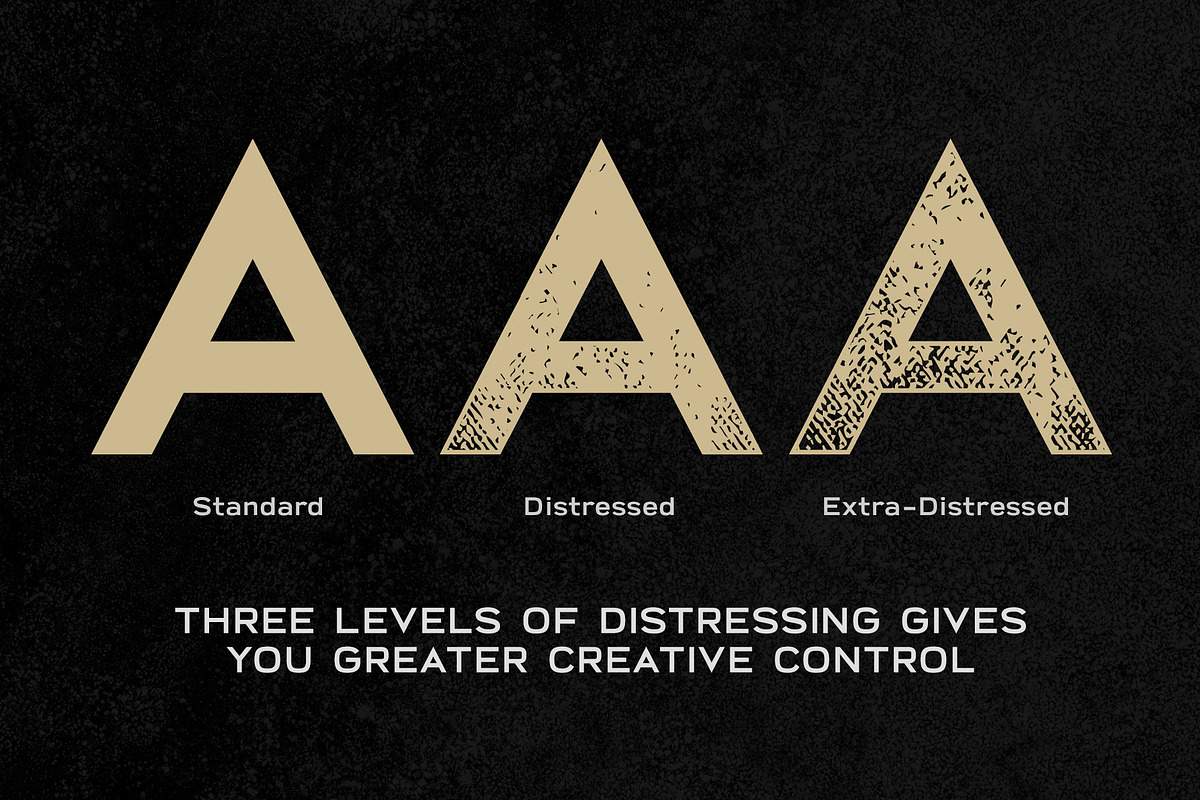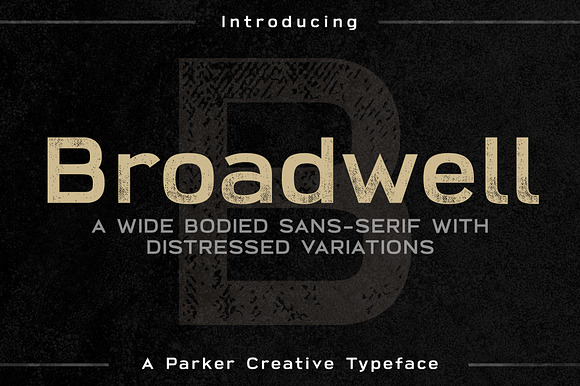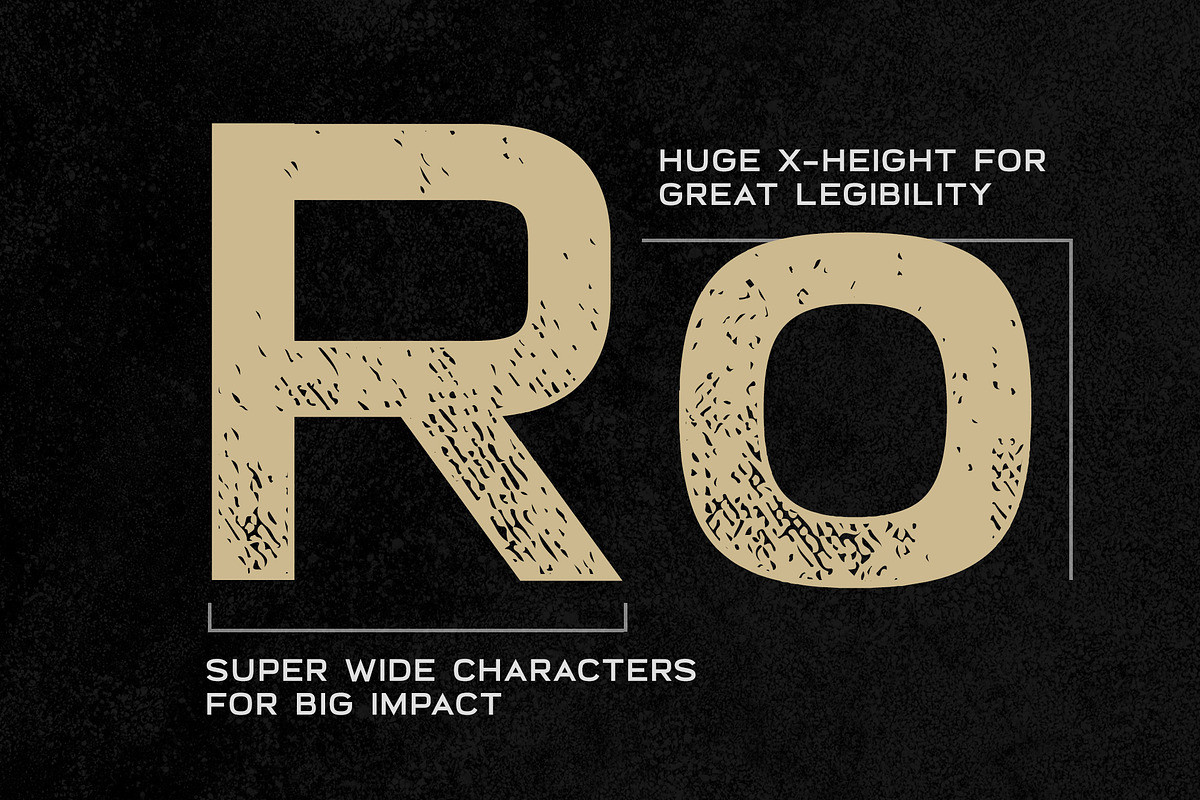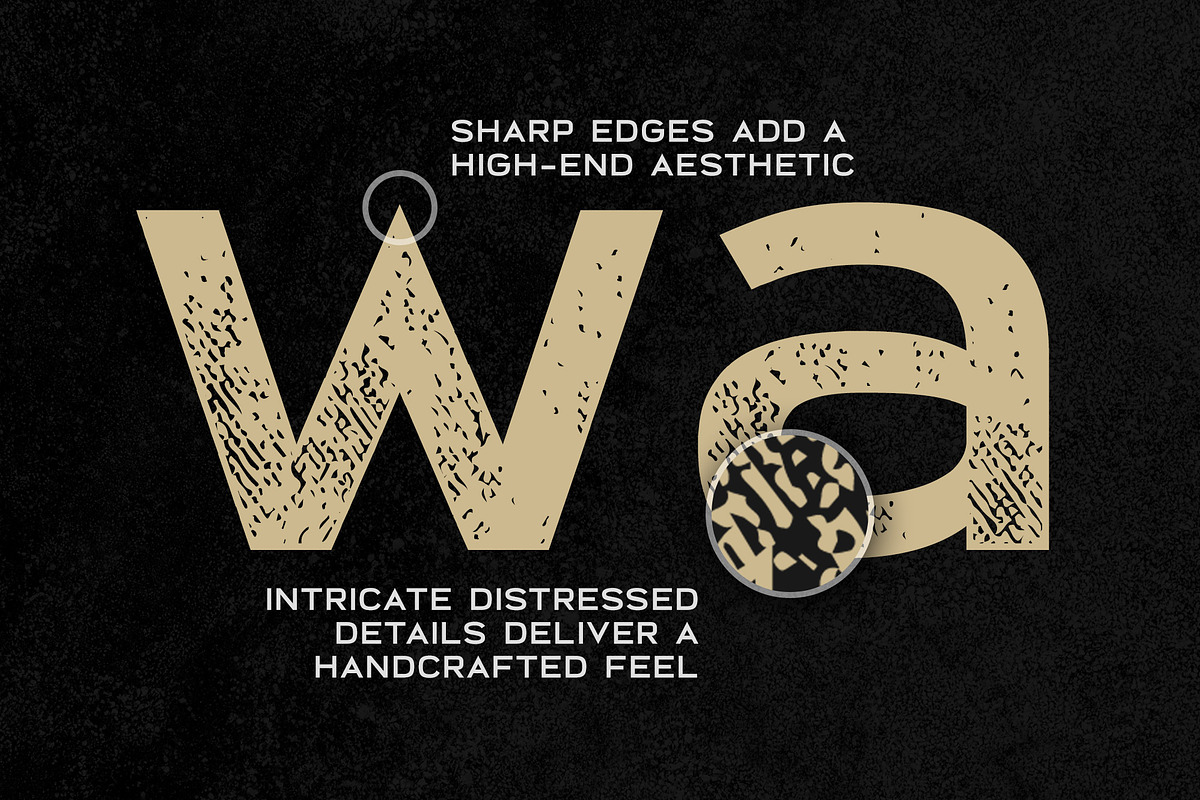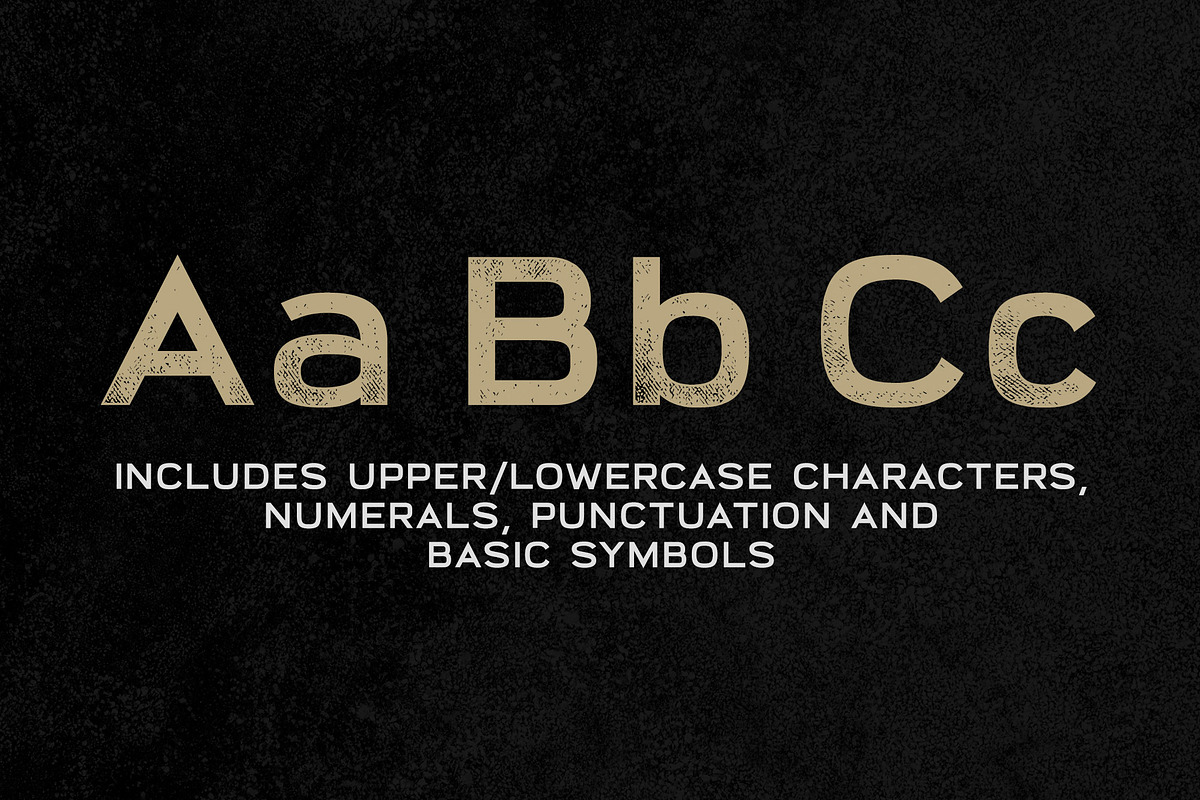
Broadwell | Strong Distressed Font
Introducing Broadwell, a wide bodied sans-serif with distressed variations.
Broadwell is a versatile font featuring clean lines and curves, balanced visual weight, and striking sharp edges all in a wide body. This font works well to draw attention in titles, headlines, and large text with it's aggressive horizontal expanse (consider an all-caps title for even more command).
Broadwell Distressed, and Broadwell Extra Distressed versions are also available to give you greater creative control in your use of the typeface. Broadwell's distressed versions maintain great legibility due to an inner-stroke that preserves the outline of the character. Use distressing to create a beautiful vintage artwork or simply use it to add a smidge of attitude (or character) to a design.